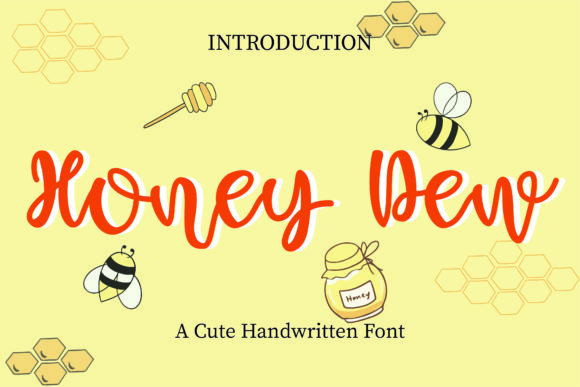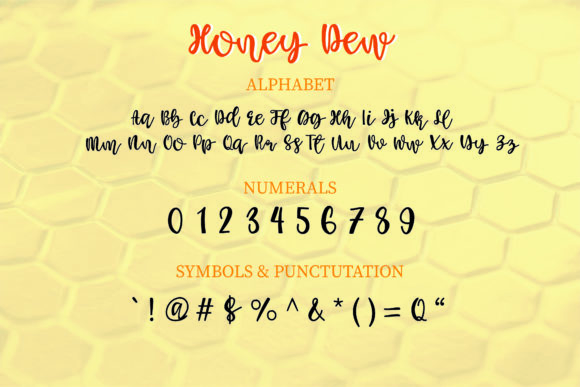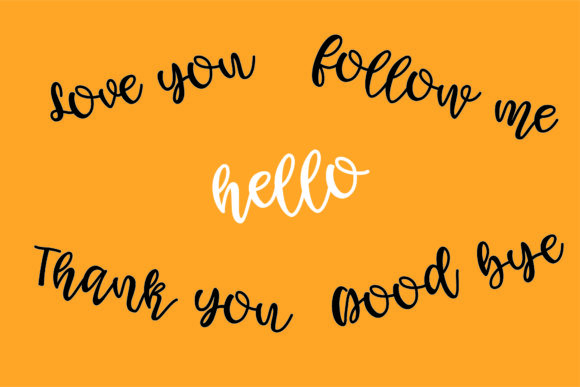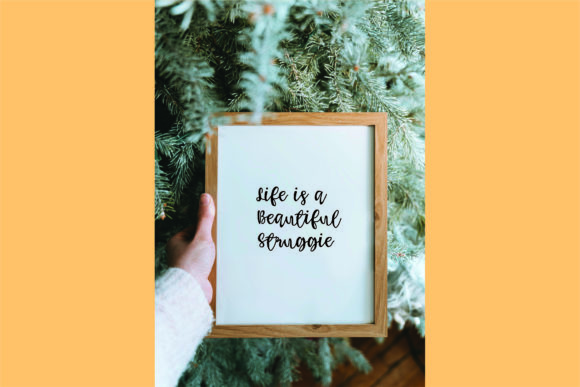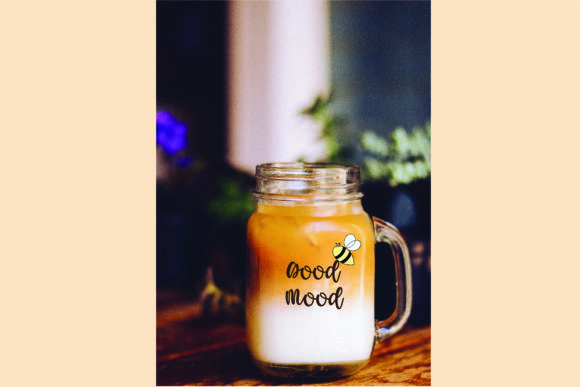
Honey Dew Font
Honey Dew is a chic, refined script font that emanates sophistication and elegance. Its stylish alternates and ligatures make this font the perfect match for any project.